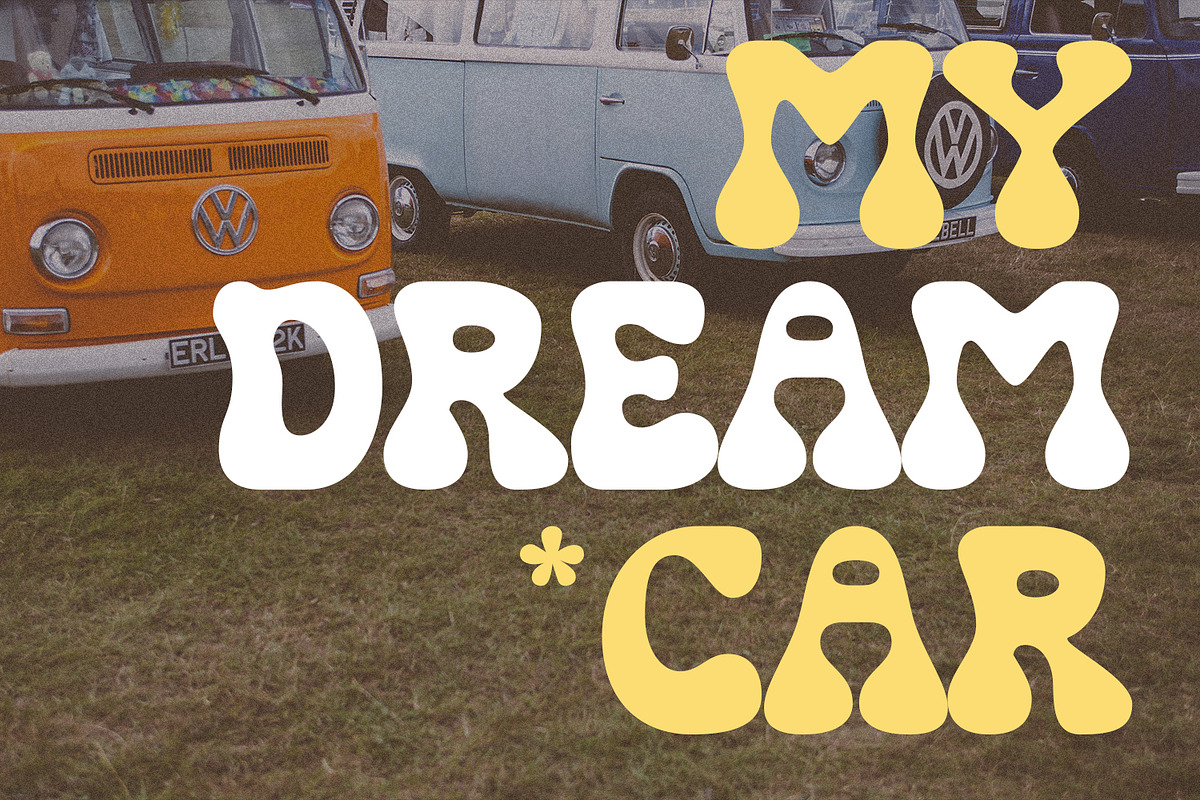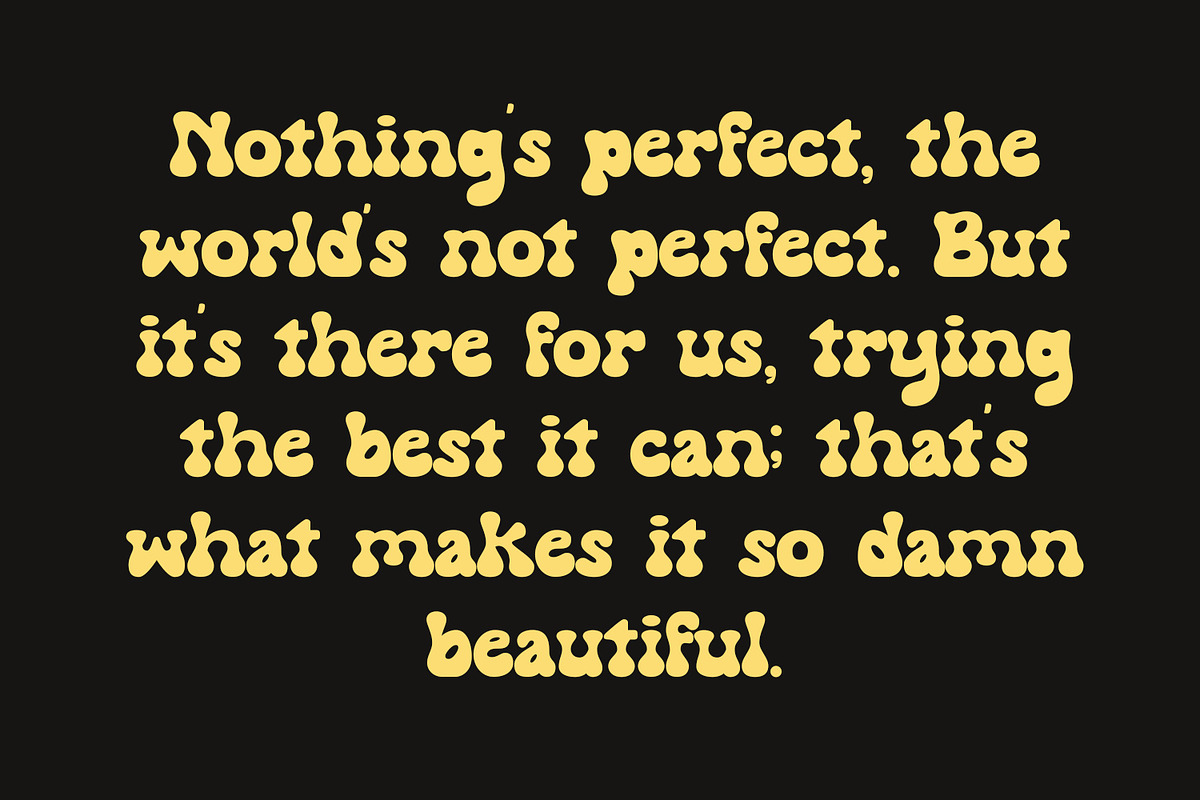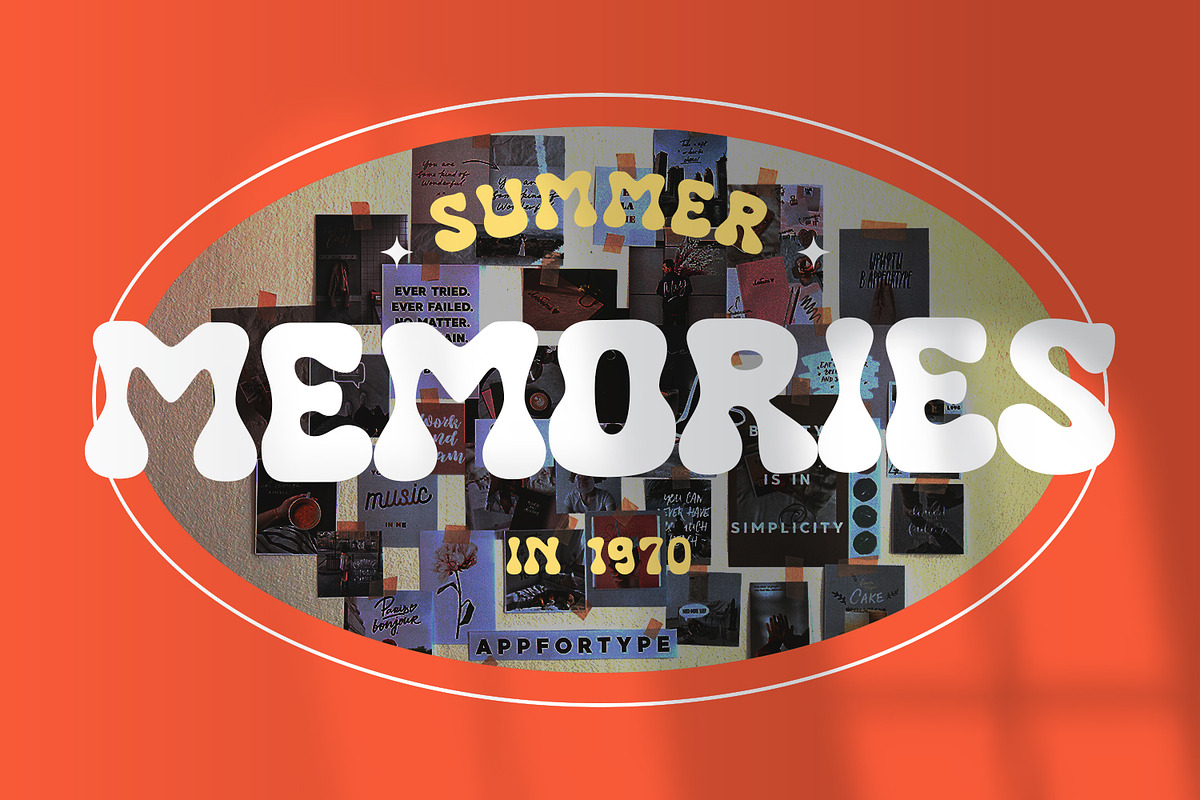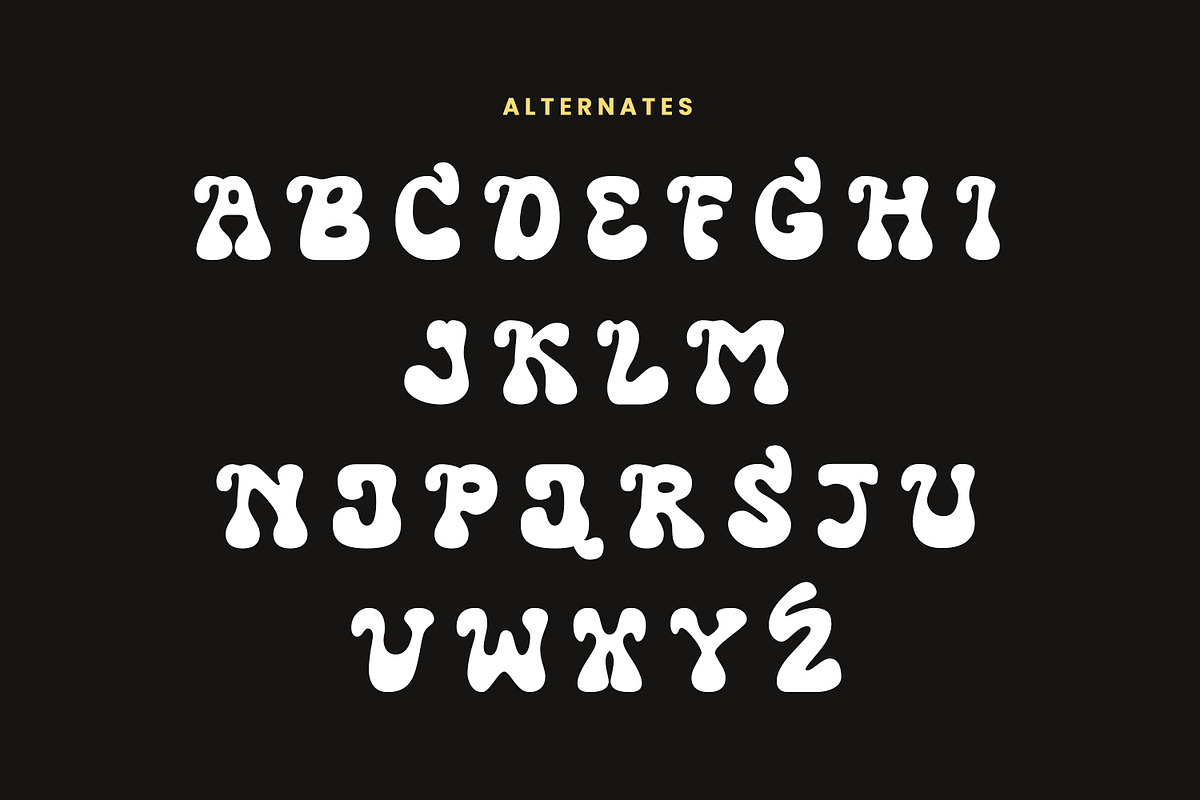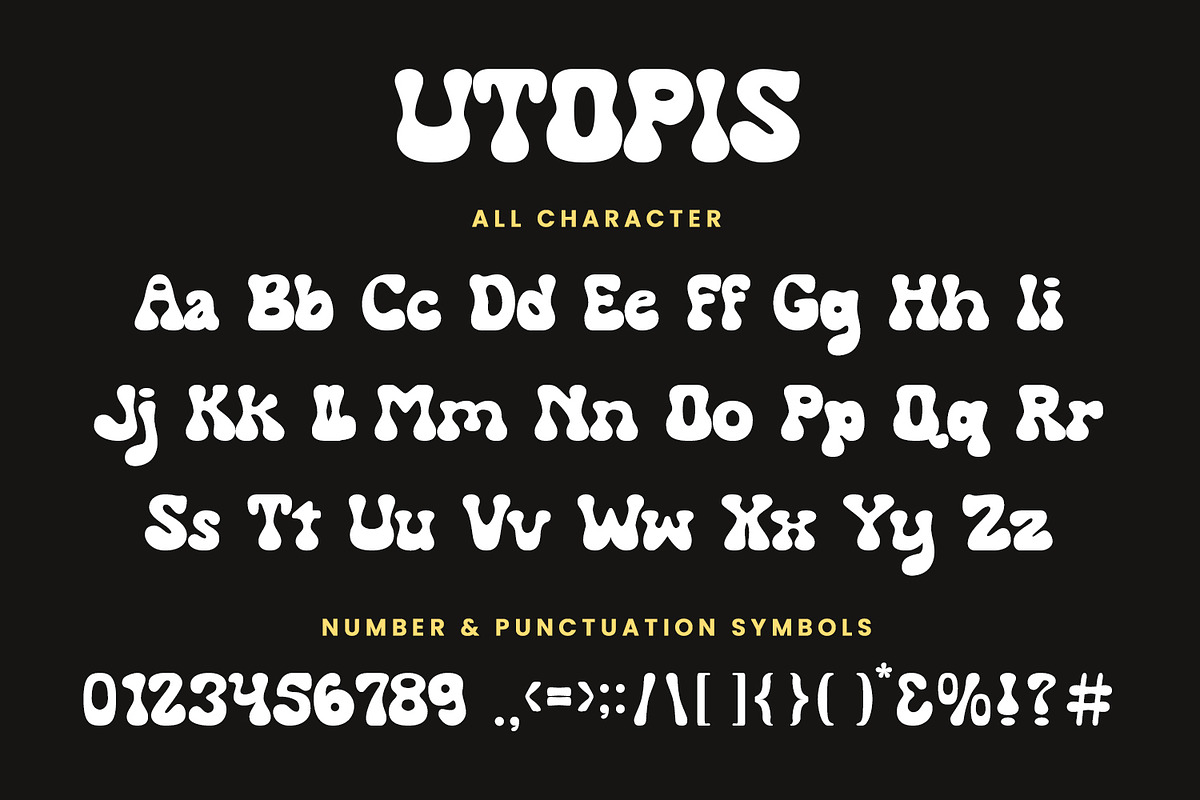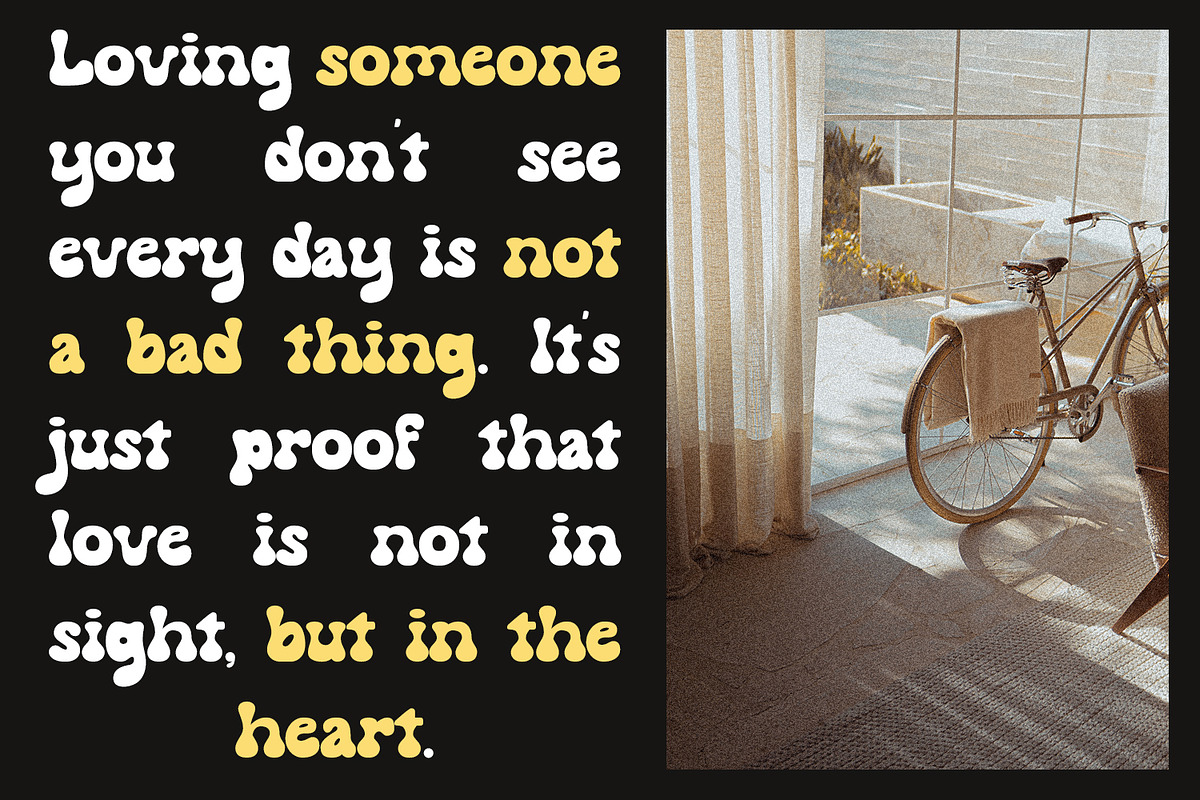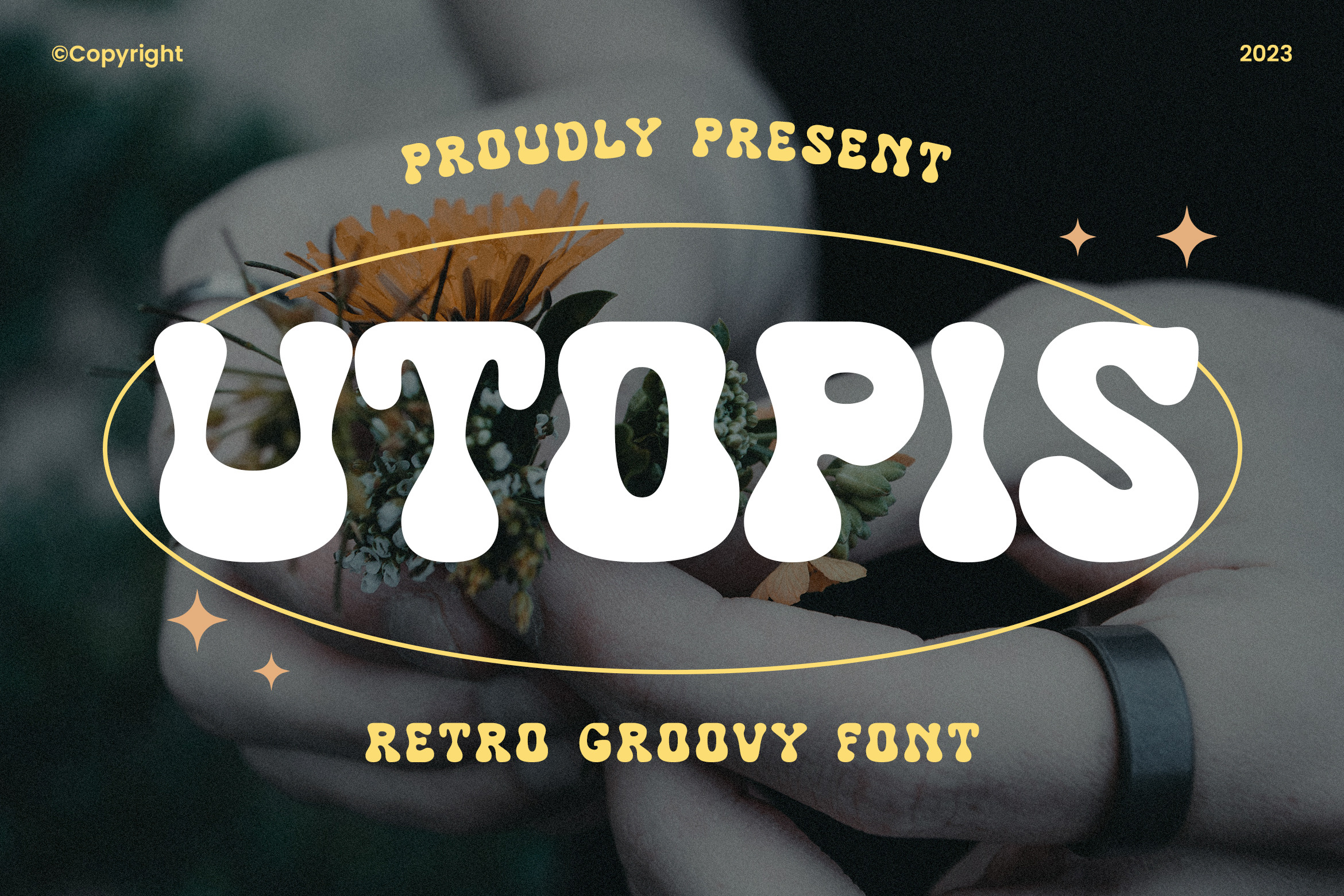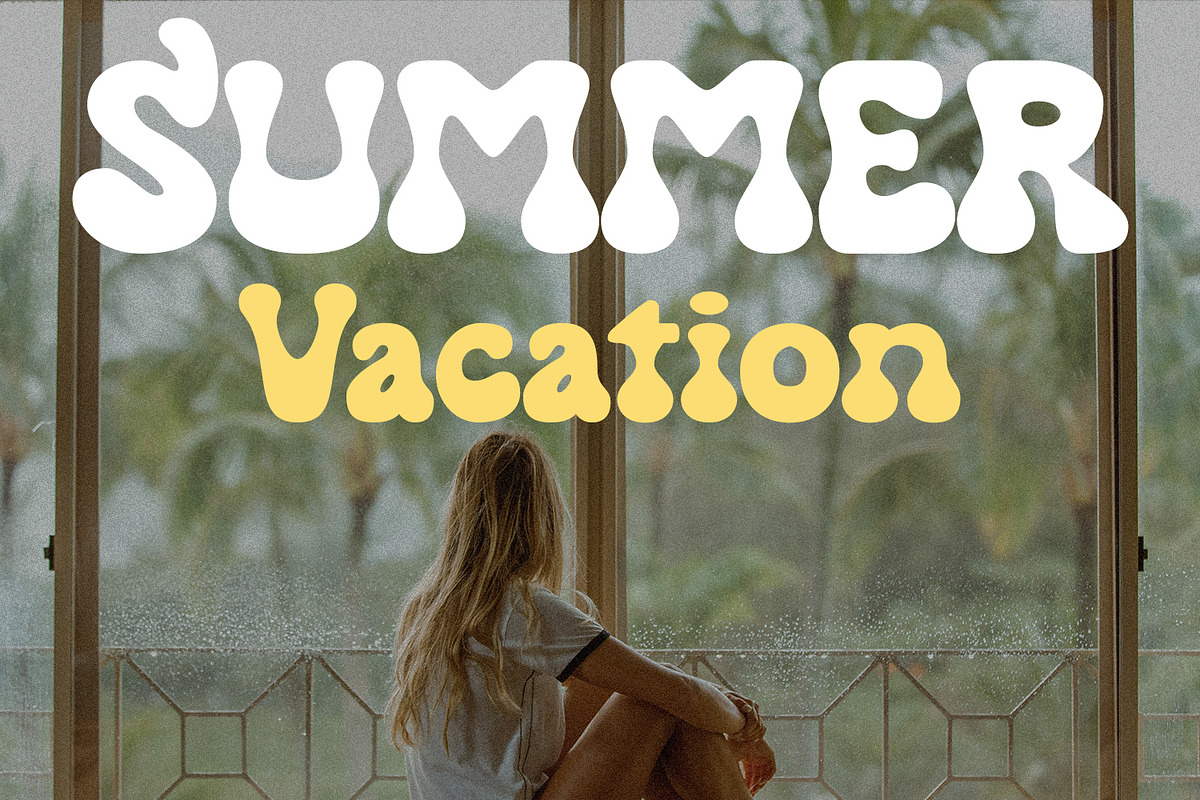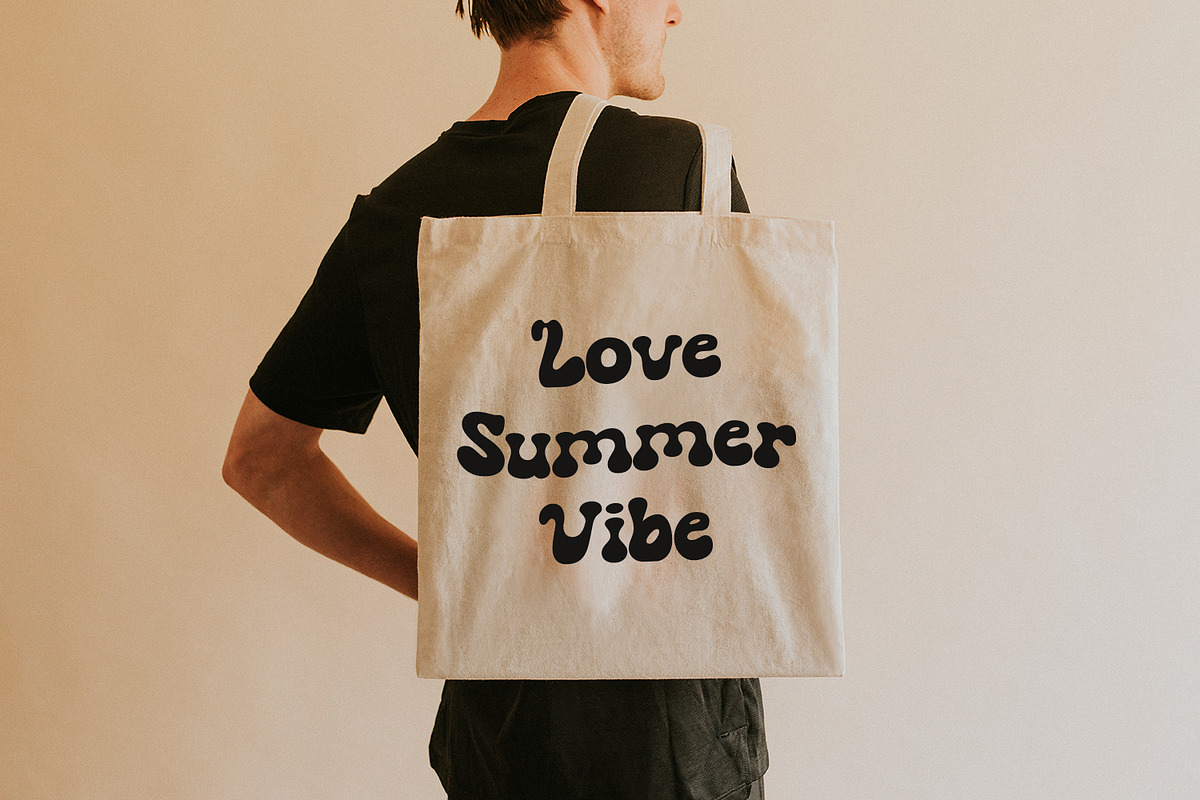
Utopis - Retro Groovy Font
Utopis - Retro Groovy Font contains a lowercase, uppercase, symbol, and also supports multi-language. There’s a lot of ligature in this font. Utopis - Retro Groovy Font also comes with ligatures, stylistic alternates and many more. this font suitable for fashion, branding, catalog and other design that you want.